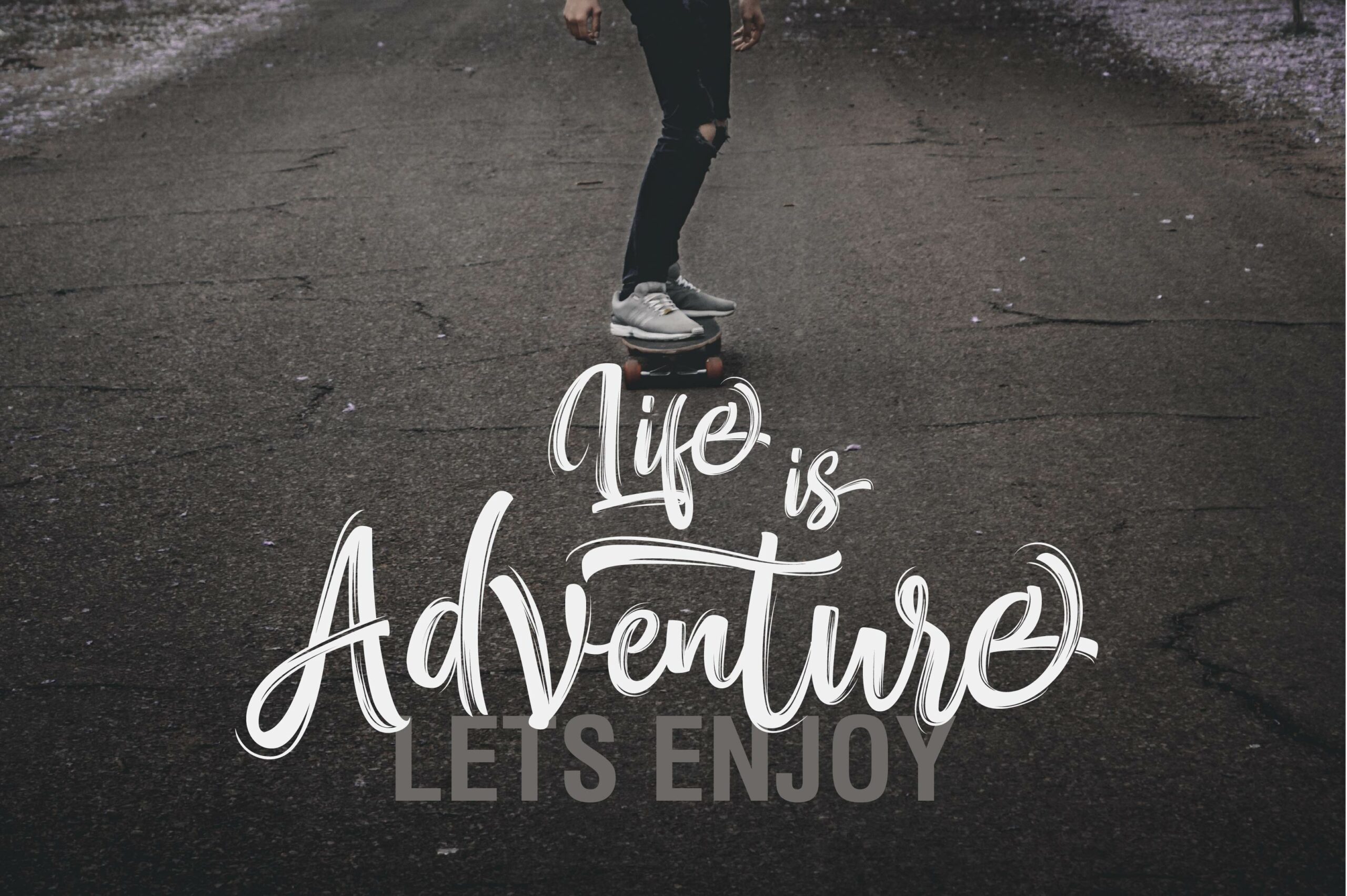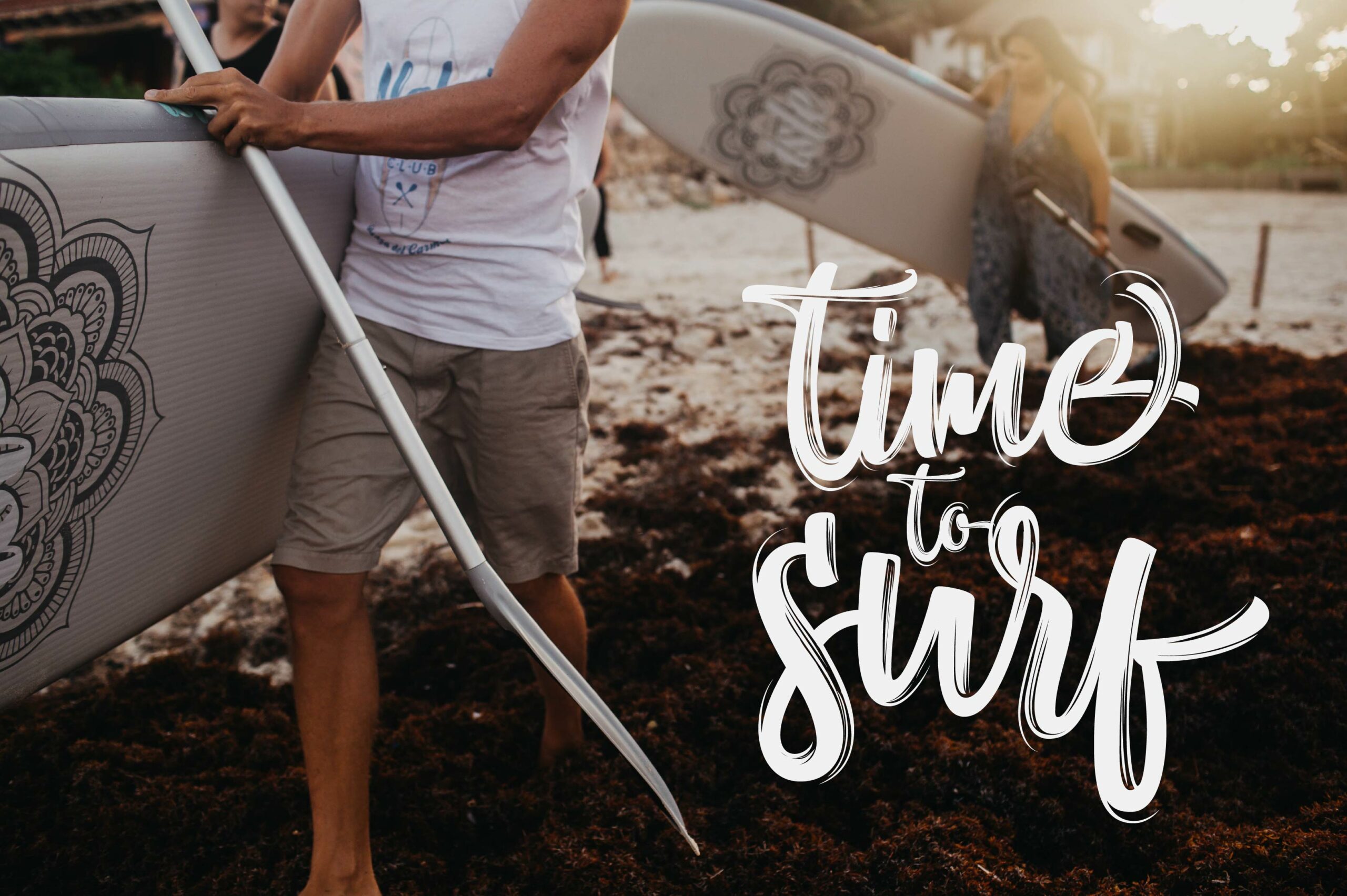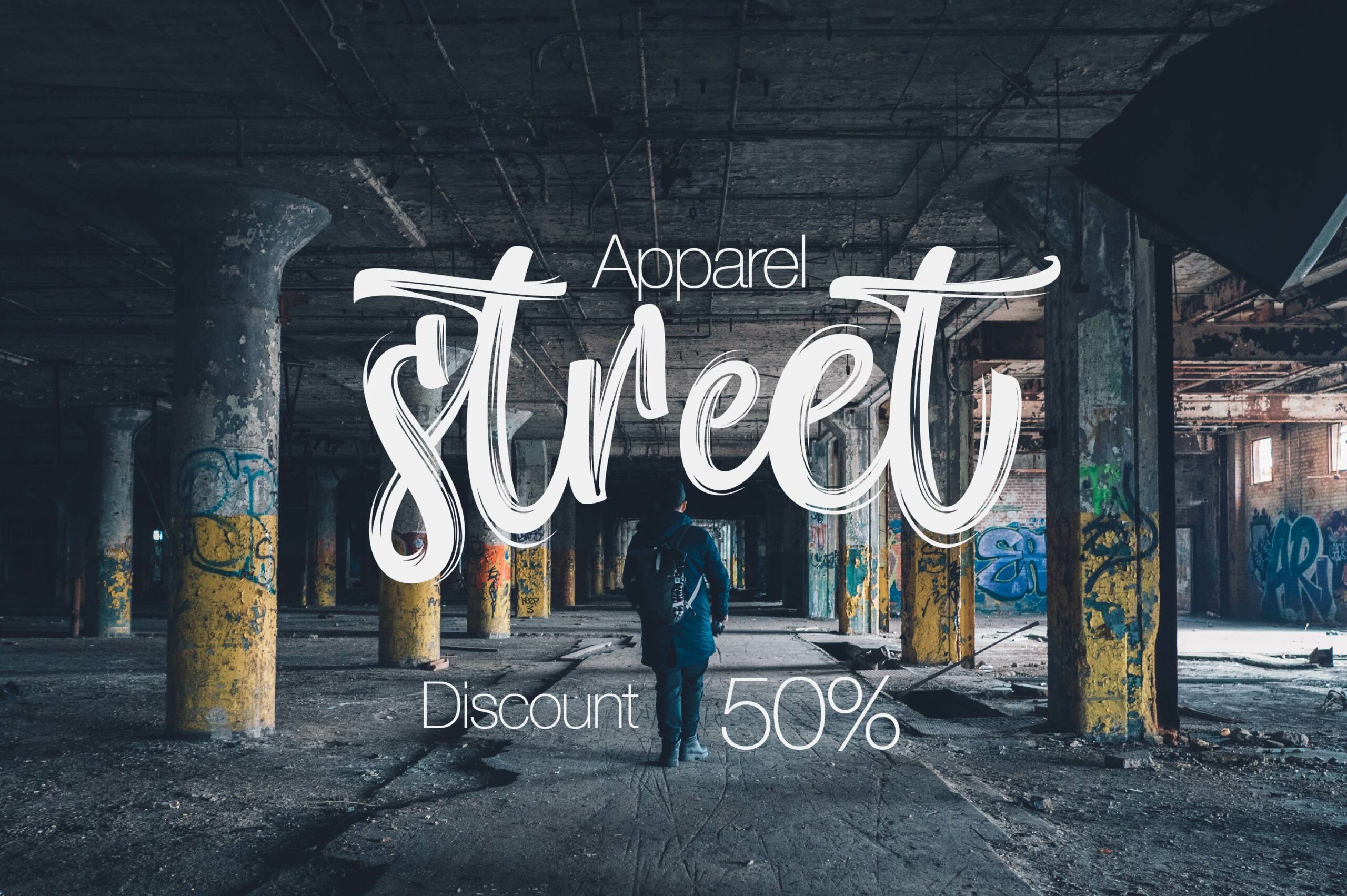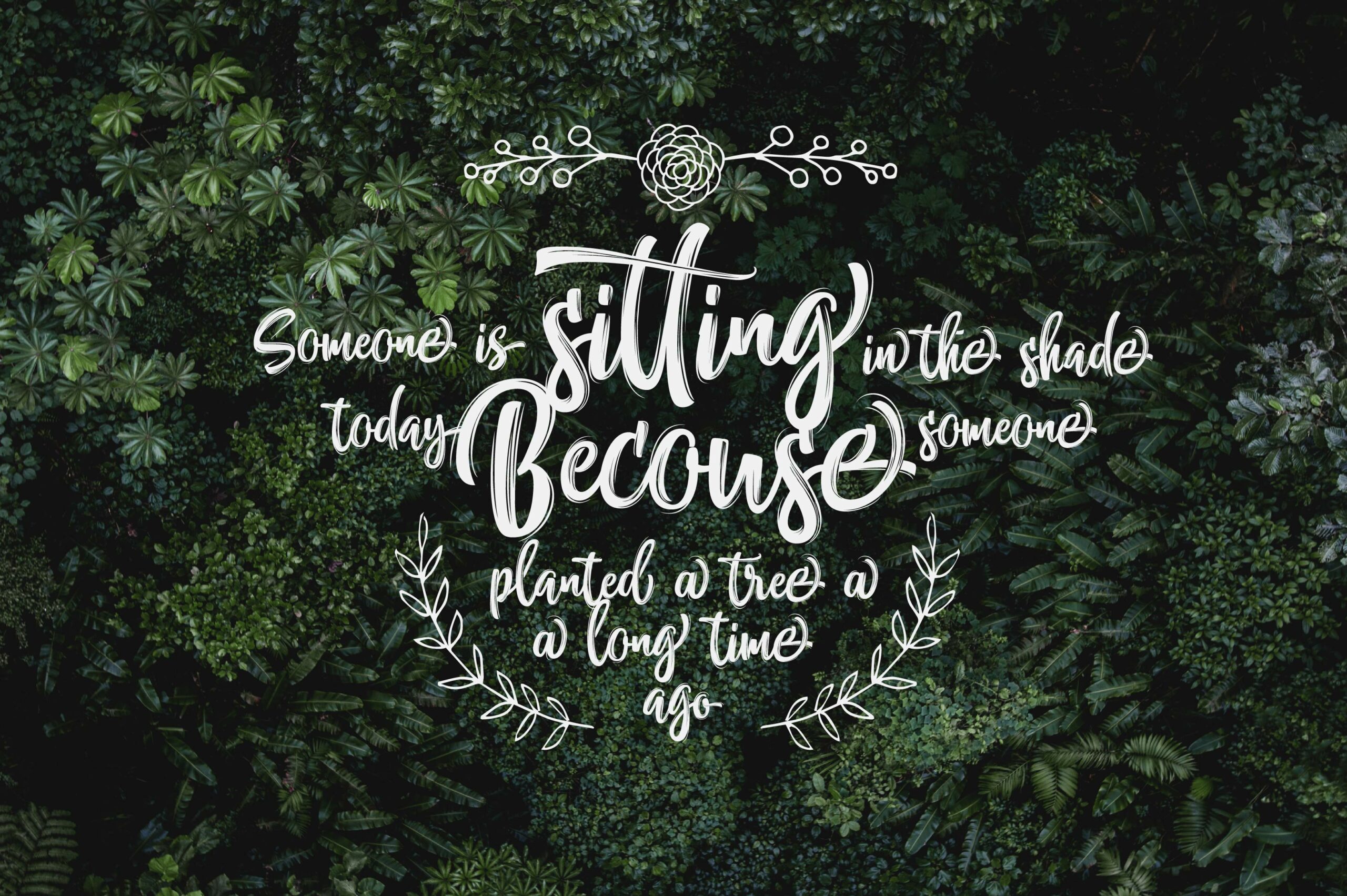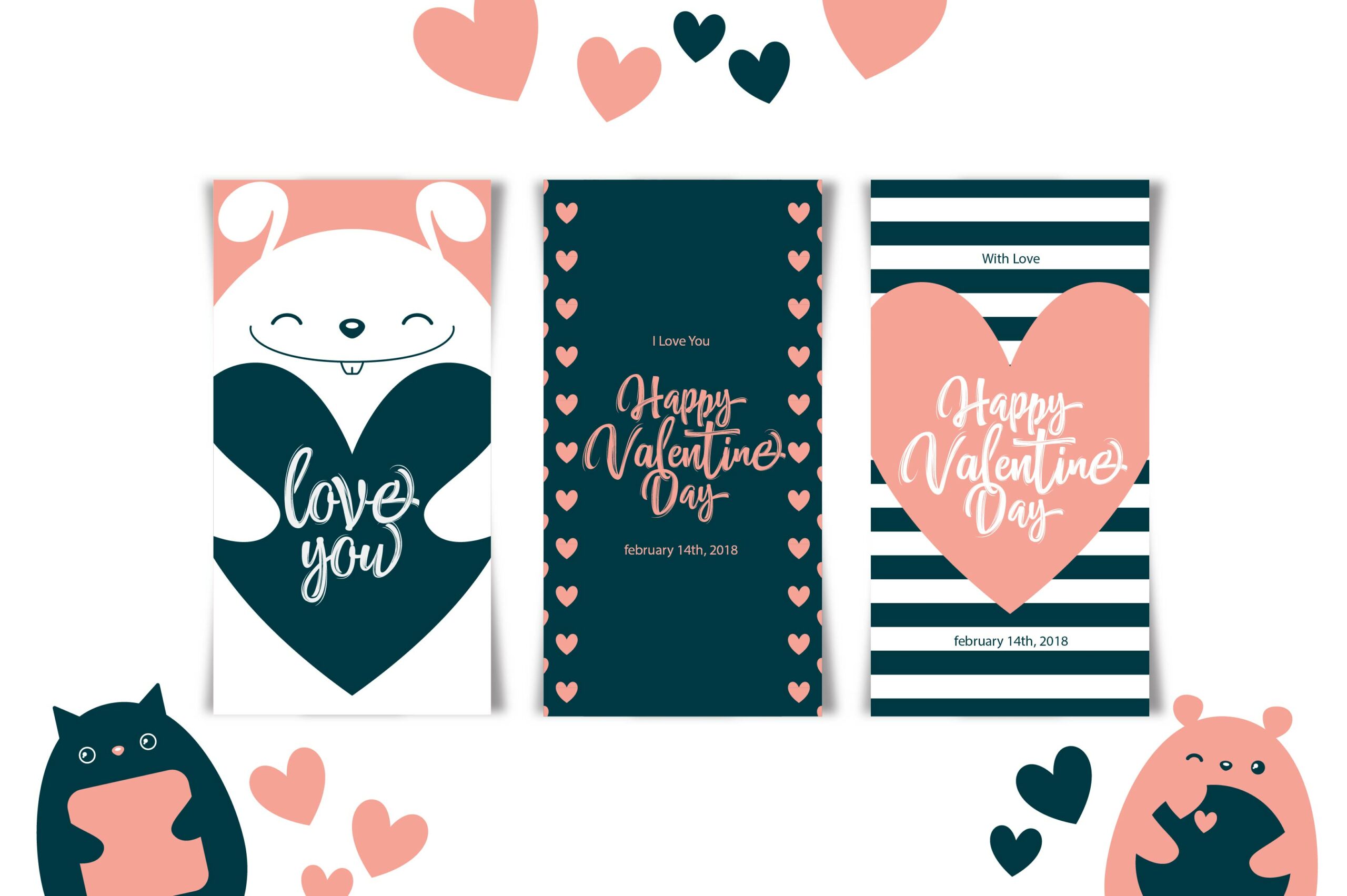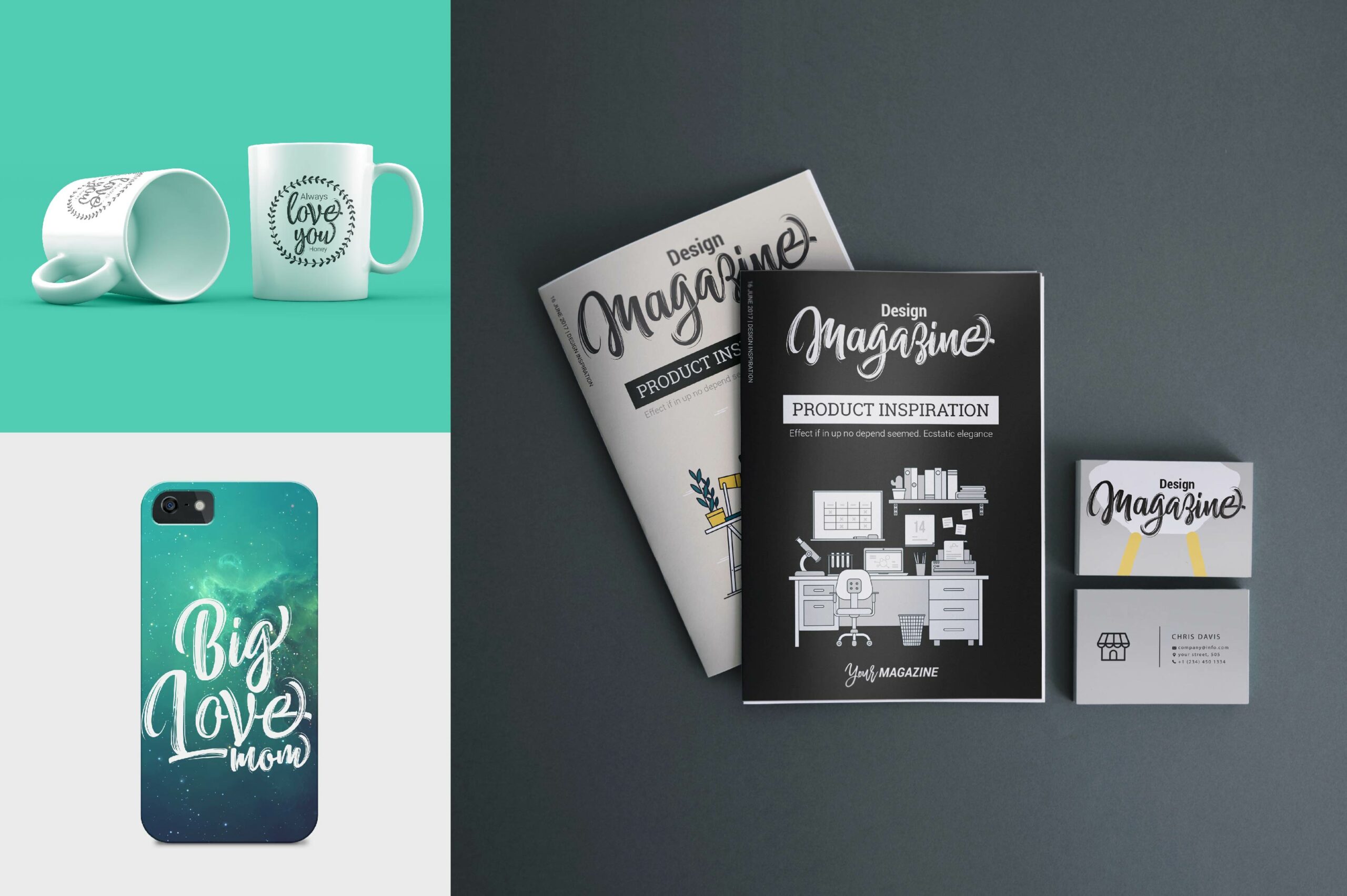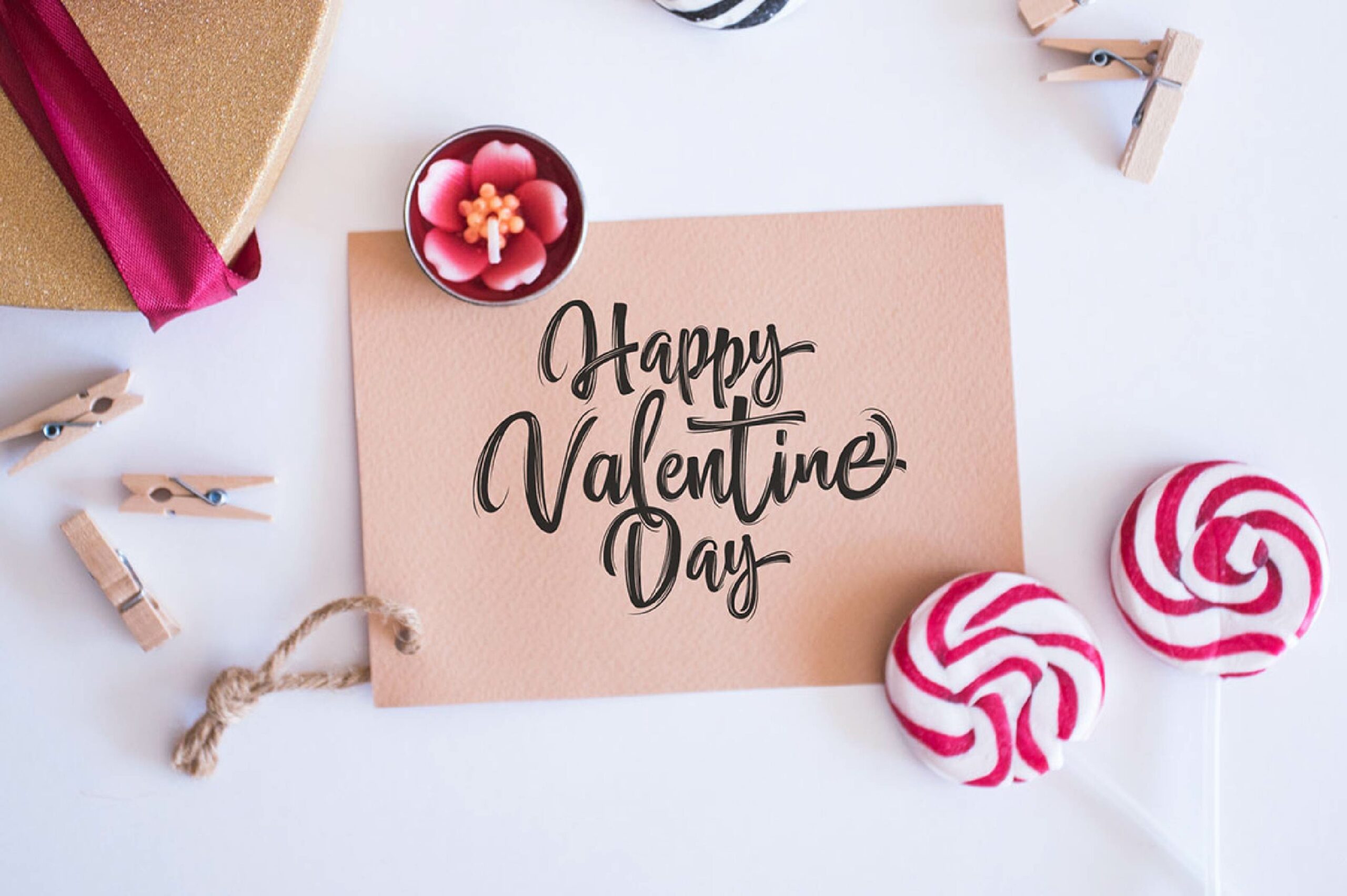
HomeScript FontsNettizen Font Script Fonts Nettizen Font FacebookXPinterestWhatsApp Nettizen Font Poster 2 Nettizen Font Poster 3 Nettizen Font Poster 4 Nettizen Font Poster 5 Nettizen Font Poster 6 Nettizen Font Poster 7 Nettizen Font Poster 8 About Nettizen Font Nettizen is a beautiful modern brush. It will add a personal touch to your design in an instant. DOWNLOAD NOW People also explored Lighten Up Font Pumpkin Font Sileighty Octynaz Saterdams Font March Vibes Font Polka Dot Font Night Moment Font Sublimation White Coffee Mug Mockup 275 0 TagsNettizen Font Previous articleLines Script FontNext articleSparkly Hearts Font LEAVE A REPLY Cancel reply Comment: Please enter your comment! Name:* Please enter your name here Email:* You have entered an incorrect email address! Please enter your email address here Website: Save my name, email, and website in this browser for the next time I comment. Personal Use Free Persephone Free Personal Use Free Read more about this font Fontmageddon Personal Use Free Read more about this font Gaboed Personal Use Free Read more about this font Messy Personal Use Free Read more about this font BLOG Using Fonts in Digital Marketing: Tips to Strengthen Your Brand Identity In the realm of digital marketing, every visual element plays a crucial role in shaping a brand's identity, and fonts are no exception. The... Free Fonts Risk: Why Free Fonts Can Be Dangerous for Designers Free vs Paid Fonts: Why Investing in Premium Fonts Is Worth It Top 10 Handwritten Fonts That Elevate Your Designs